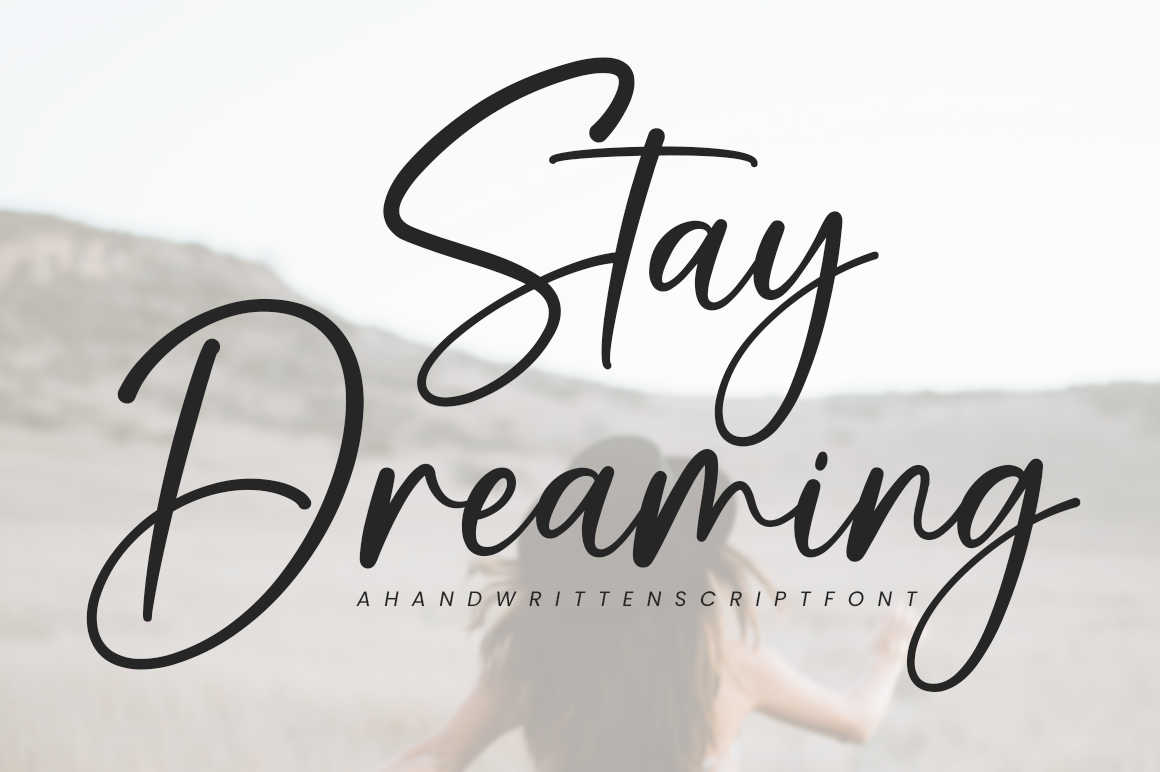
Stay Dreaming feels equally charming and elegant. It looks stunning on wedding invitations, thank you cards, quotes, greeting cards, logos, business cards and every other design which needs a handwritten touch.